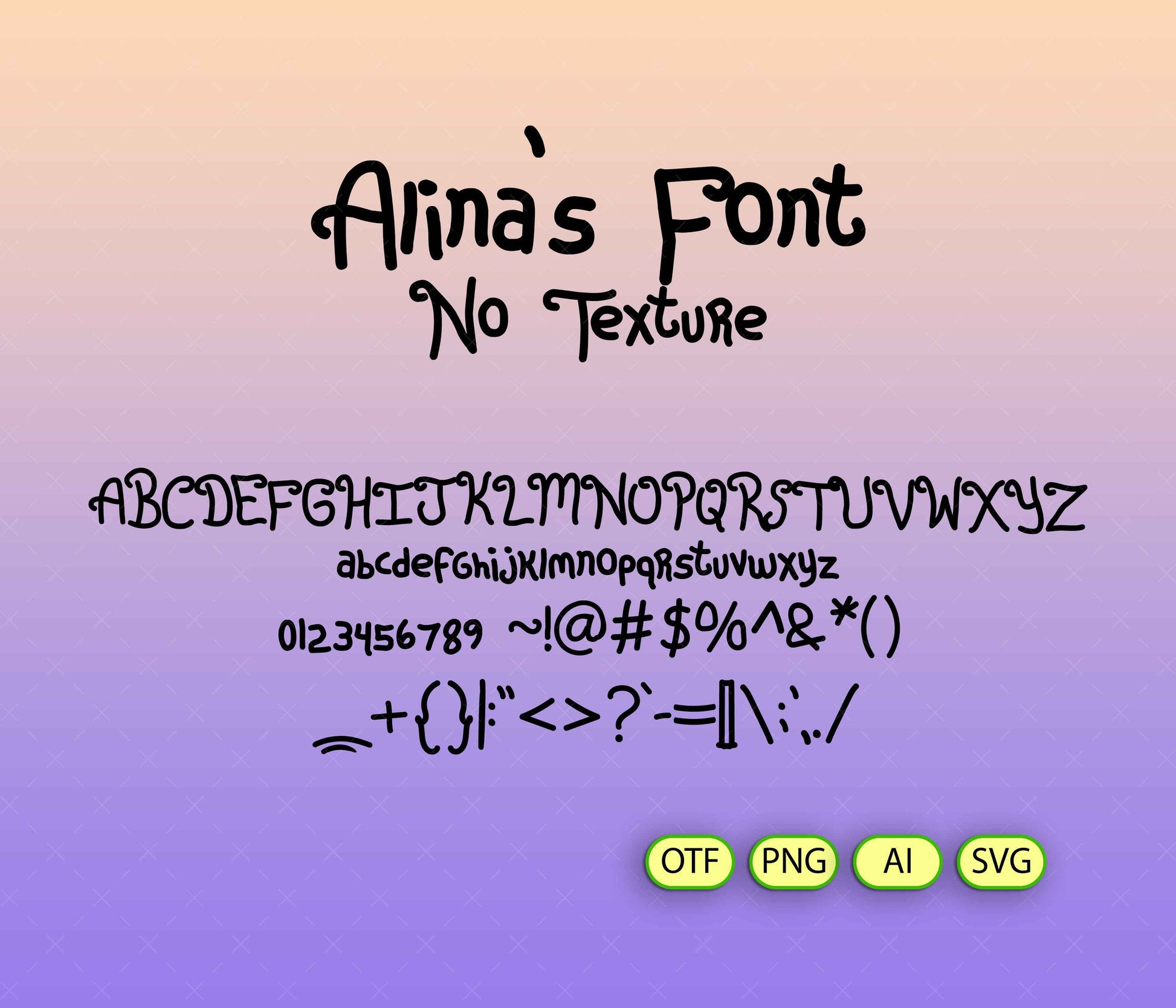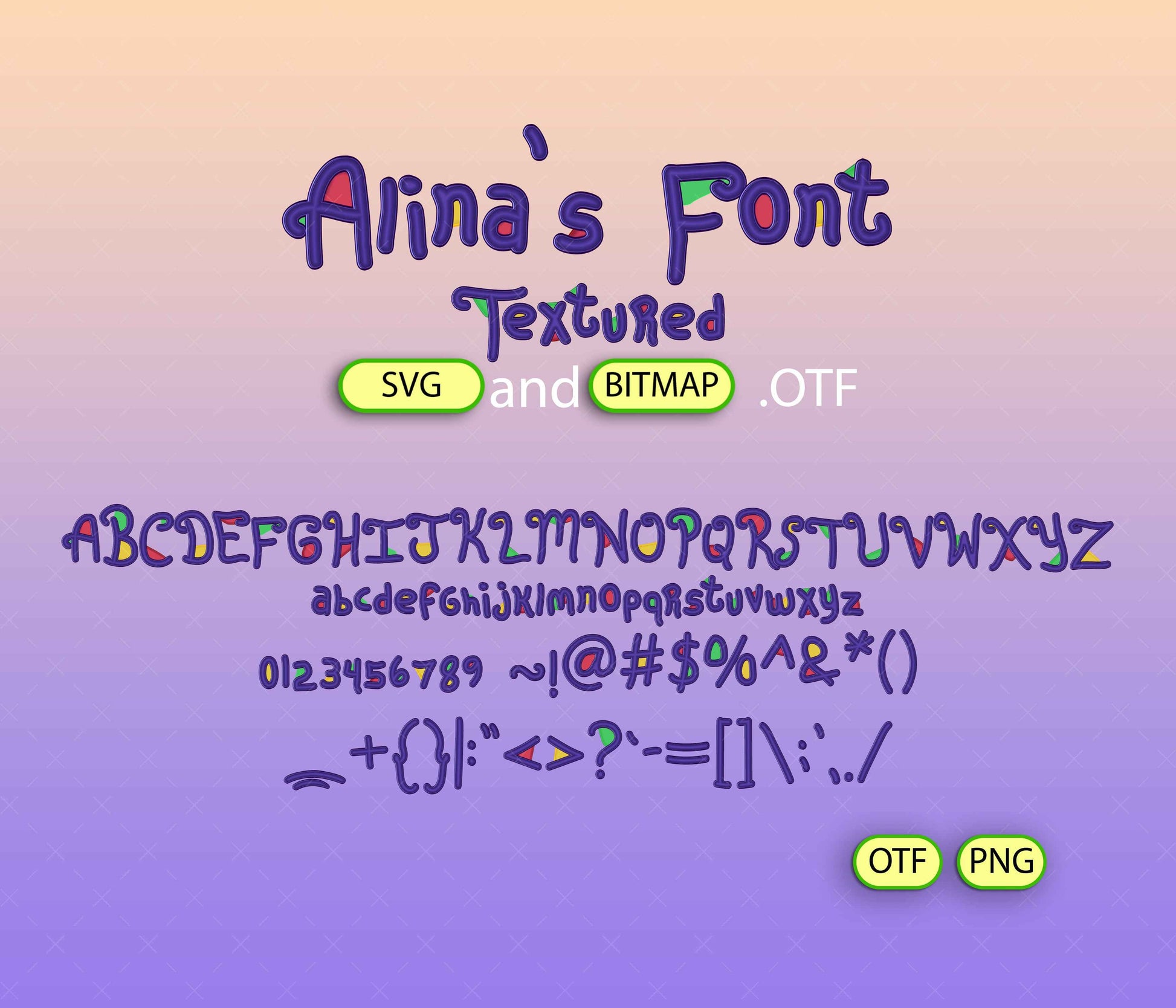
Toddler Adventures Font Textured
Toddler Adventures Font: A Playful Journey into the World of Iconic 90s Animation
Dive into the nostalgia of the 90s with the Toddler Adventures font, a playful and vibrant typeface that captures the spirit of an iconic animated series. This beloved show, a staple of 90s American cartoons, not only entertained a generation but also left a lasting impression with its unique animation style and character design. This font is a homage to the mischievous adventures of a group of imaginative toddlers, bringing the essence of their world to your creative projects.
What font is the Toddler Adventures font?
The Toddler Adventures font, designed by Alina's Font, is a font that closely replicates the custom design used in the original TV series. Complete with a full set of upper and lowercase characters, numerals, and punctuation accents, this font allows you to recreate the exact logo as seen on the show. Its playful and quirky style, characterized as a mix of handwriting and script font tags, perfectly captures the whimsical and adventurous spirit of the animated toddlers.
What Can You Do With The Toddler Adventures Font:
This fun and engaging font is versatile for various applications, especially those targeting nostalgia and children's themes:
1. Designing party invitations or decorations for cartoon-themed children's parties.
2. Creating custom T-shirts or apparel featuring quotes or characters inspired by the show.
3. Crafting engaging educational materials or storybooks inspired by imaginative toddlers.
4. Producing digital content or graphics for blogs and social media platforms focusing on parenting or 90s nostalgia.
5. Personalizing stationery, notebooks, or school supplies with playful designs.
6. Developing promotional materials for events, screenings, or fan gatherings celebrating 90s cartoons.
7. Creating unique gifts or memorabilia for fans of classic animated series.
8. Designing posters or art prints that capture the essence of childhood imagination.
9. Customizing accessories like backpacks, hats, or badges with whimsical artwork.
10. Producing animated content or games that resonate with a playful, childlike theme.